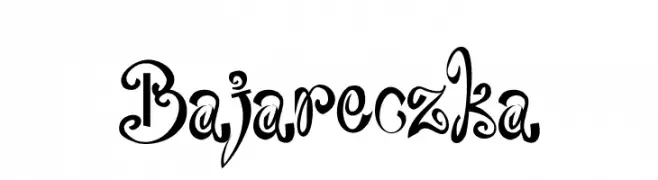
( Fonts by Projeto Tipo da Fonte )
A decorative, modern font with parallel line detailing and geometric structure.
( Vlad Viperov )
A playful font composed of star and circle shapes, perfect for whimsical designs.
( Fonts by Victories )
A playful and whimsical font with decorative curls and swirls.
An elegant script font with flowing, cursive letterforms and a classic appearance.
A bold, cursive script font with flowing, connected letterforms.
( Fonts by Display Studio )
A modern, dotted font with consistent spacing and a playful style.
A bold, decorative font with a retro, three-dimensional style.
Outlined, boxy decorative font ideal for icon overlays.
A bold, geometric font with a pixelated, digital appearance.
An ornate, decorative font with intricate swirls and high contrast, perfect for artistic projects.
A bold, geometric font with a stencil-like design and strong industrial appeal.
( Fonts by Sj )
An artistic, angular font with a hand-drawn, edgy style.
A versatile set of arrow designs with varied styles and directions.
Abstract, arrow-based decorative font with bold geometric forms.
An ornate Art Nouveau font with flowing lines and intricate details.
A decorative Art Nouveau-inspired font with intricate floral motifs.
An ornamental typeface with intricate Art Nouveau floral designs.
Ornate Art Nouveau-style frames and borders as glyphs.
A bold, Art Deco-inspired font with geometric shapes and intricate patterns.
A bold, decorative font with an Art Deco style and intricate patterns.
A decorative typeface with geometric Art Deco motifs and intricate patterns.
( Posterizer KG - Lazar Dimitrijevic - www.myfonts.com/foundry/PosterizerKG/#return_to_item_11 )
A bold, artistic font with an ink-like, fluid appearance.
( Fonts by Emily Kryz )
A bold, decorative font with arrow motifs and geometric elements.
An elegant, Art Deco-inspired decorative font with ornate uppercase and streamlined lowercase letters.
A dingbat font of art supply and stationery icons.